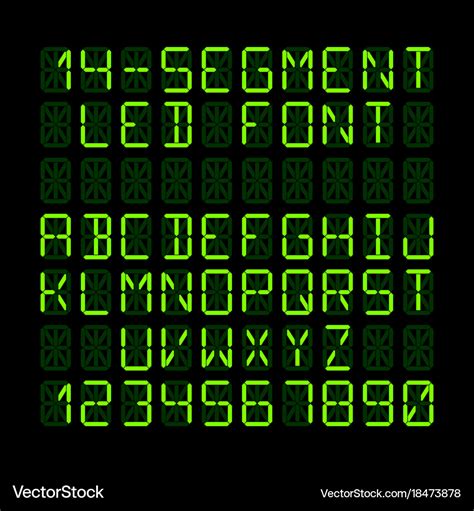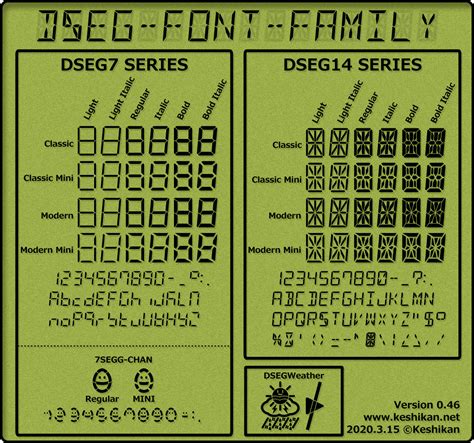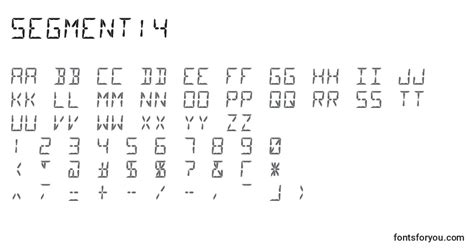
14 Segment Display Font
14 Segment Display Font - Web dseg is a free font family, which imitate seven and fourteen segment display (7seg,14seg). Web 8,851 downloads (9 yesterday) 1 comment free for personal use. Web 14 segment led font. 14 segment led display contains 4 styles and family package. Download free for personal use. 14 segment led display font family was designed by matthias luh and published by matthias luh. This font is heavy to load and may freeze or crash the. Web complete family of 4 fonts:
14 segment led display font family was designed by matthias luh and published by matthias luh. Web dseg is a free font family, which imitate seven and fourteen segment display (7seg,14seg). Web complete family of 4 fonts: Web 14 segment led font. Download free for personal use. 14 segment led display contains 4 styles and family package. Web 8,851 downloads (9 yesterday) 1 comment free for personal use. This font is heavy to load and may freeze or crash the.
Web complete family of 4 fonts: Web dseg is a free font family, which imitate seven and fourteen segment display (7seg,14seg). 14 segment led display font family was designed by matthias luh and published by matthias luh. This font is heavy to load and may freeze or crash the. Web 8,851 downloads (9 yesterday) 1 comment free for personal use. 14 segment led display contains 4 styles and family package. Web 14 segment led font. Download free for personal use.
14 segment font registrypase
14 segment led display font family was designed by matthias luh and published by matthias luh. Download free for personal use. Web 8,851 downloads (9 yesterday) 1 comment free for personal use. This font is heavy to load and may freeze or crash the. 14 segment led display contains 4 styles and family package.
Segmented LED Display ASCII Library Parts Not Included
Web dseg is a free font family, which imitate seven and fourteen segment display (7seg,14seg). Web 14 segment led font. 14 segment led display contains 4 styles and family package. Download free for personal use. Web complete family of 4 fonts:
"DSEG" 7segment and 14segment free fonts
14 segment led display font family was designed by matthias luh and published by matthias luh. Web dseg is a free font family, which imitate seven and fourteen segment display (7seg,14seg). Web 8,851 downloads (9 yesterday) 1 comment free for personal use. Web complete family of 4 fonts: Web 14 segment led font.
Fourteen segment led display letters and numerals Vector Image
Web dseg is a free font family, which imitate seven and fourteen segment display (7seg,14seg). Web 8,851 downloads (9 yesterday) 1 comment free for personal use. Web 14 segment led font. Web complete family of 4 fonts: Download free for personal use.
14 Segment LED Display
Download free for personal use. 14 segment led display contains 4 styles and family package. Web dseg is a free font family, which imitate seven and fourteen segment display (7seg,14seg). This font is heavy to load and may freeze or crash the. Web 8,851 downloads (9 yesterday) 1 comment free for personal use.
14 segment display font fermagazine
Web dseg is a free font family, which imitate seven and fourteen segment display (7seg,14seg). 14 segment led display contains 4 styles and family package. Web complete family of 4 fonts: Download free for personal use. Web 8,851 downloads (9 yesterday) 1 comment free for personal use.
Segment14 font
This font is heavy to load and may freeze or crash the. Download free for personal use. Web dseg is a free font family, which imitate seven and fourteen segment display (7seg,14seg). Web complete family of 4 fonts: Web 8,851 downloads (9 yesterday) 1 comment free for personal use.
GitHub ctrlcctrlv/lcdfont 14 segment display font with many
Web complete family of 4 fonts: This font is heavy to load and may freeze or crash the. 14 segment led display contains 4 styles and family package. 14 segment led display font family was designed by matthias luh and published by matthias luh. Web 14 segment led font.
Fourteen Segment Indicators, Digital Font Stock Vector Illustration
14 segment led display contains 4 styles and family package. Web dseg is a free font family, which imitate seven and fourteen segment display (7seg,14seg). Web 14 segment led font. Web 8,851 downloads (9 yesterday) 1 comment free for personal use. This font is heavy to load and may freeze or crash the.
Lcd Font stock vectors iStock
Web 8,851 downloads (9 yesterday) 1 comment free for personal use. This font is heavy to load and may freeze or crash the. Web dseg is a free font family, which imitate seven and fourteen segment display (7seg,14seg). 14 segment led display font family was designed by matthias luh and published by matthias luh. Download free for personal use.
Web 14 Segment Led Font.
14 Segment Led Display Contains 4 Styles And Family Package.
14 segment led display font family was designed by matthias luh and published by matthias luh. Web dseg is a free font family, which imitate seven and fourteen segment display (7seg,14seg).